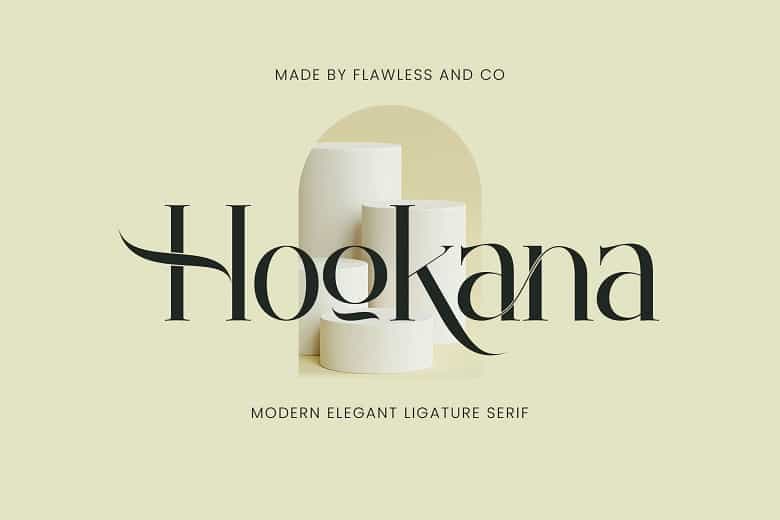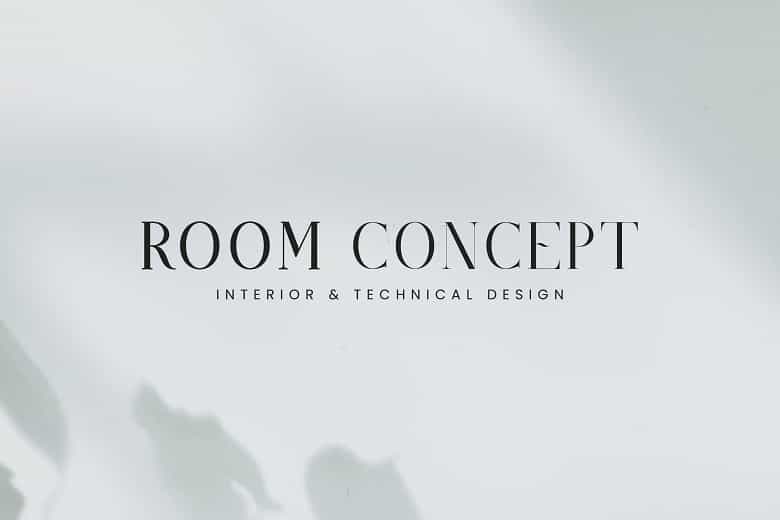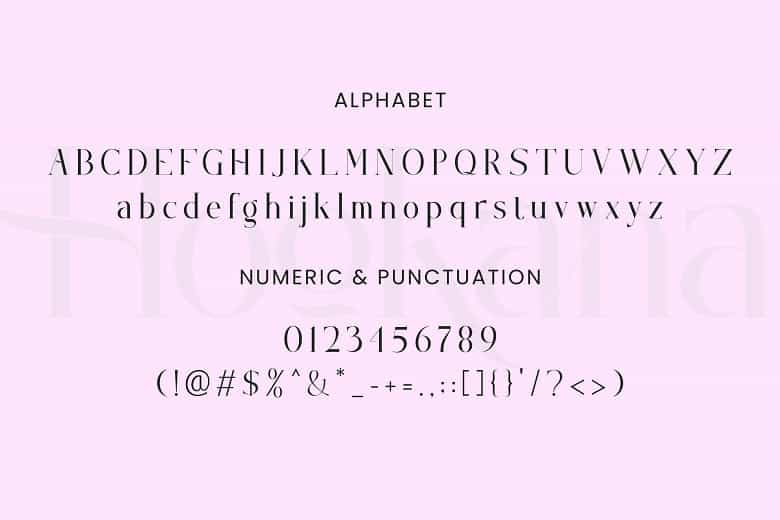
Hookana – our newest font release, modern serif font with various alternates and ligatures, multilingual support with a fresh boho twist ideal for branding, business, logos, magazines and more.